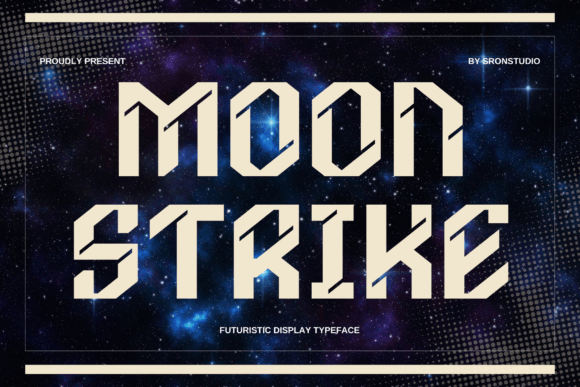
Prepare for lift-off as you embark on a typographic journey with "Moonstrike," the font that will propel your designs to stratospheric heights. In a cosmos of fonts, "Moonstrike" stands as a celestial beacon, guiding your creative explorations into the uncharted territories of the future.
Picture this: Your designs transformed into sleek spaceships, navigating the digital realm with ease and precision. The sharp angles and geometric curves of "Moonstrike" will create a visual symphony that will leave your audience starstruck. It's the font that will make your messages soar through the vast expanse of the internet, reaching audiences eager to decode your cosmic brilliance.
With "Moonstrike," the boundaries between imagination and reality blur as your designs take on an ethereal presence. It's the font that will make your projects shine brighter than a distant star, captivating all who dare to gaze upon them.
Whether you seek to conquer the digital frontier or explore the depths of your own creativity, "Moonstrike" is your interstellar companion. With every stroke, it will infuse your designs with a touch of cosmic wonder, leaving an indelible mark on the digital universe.